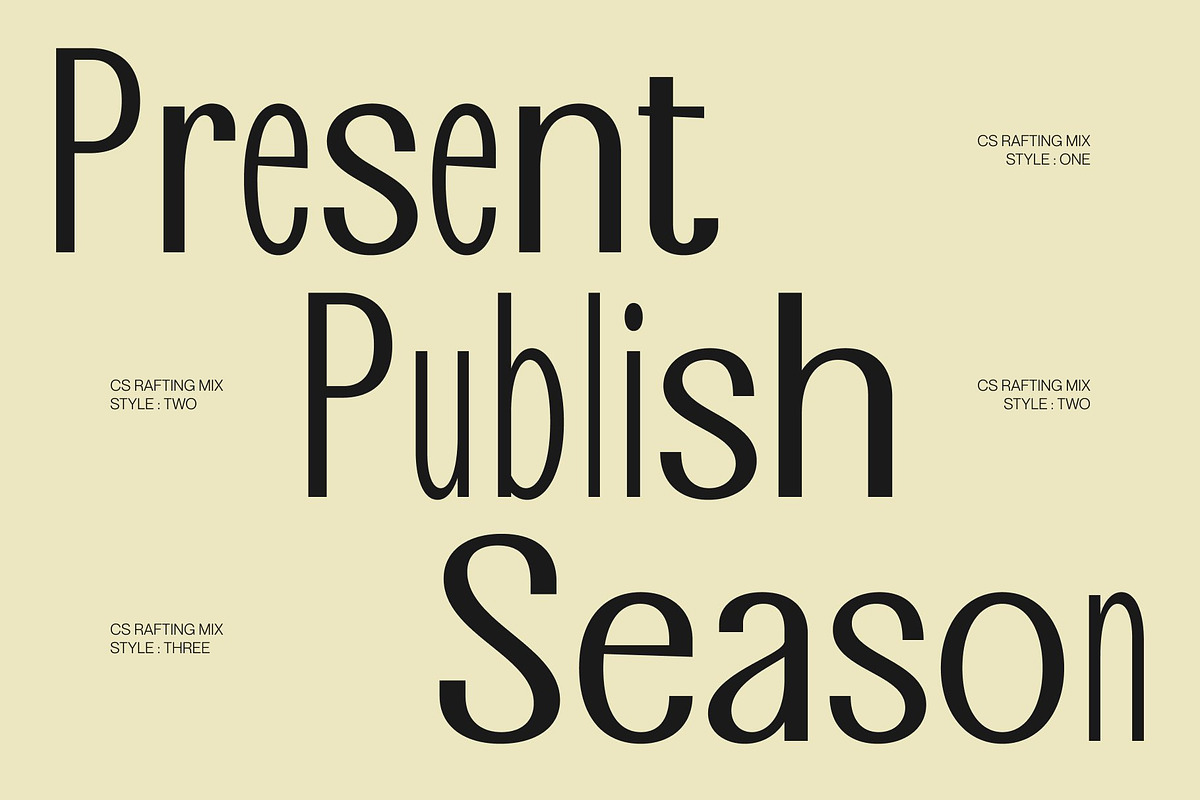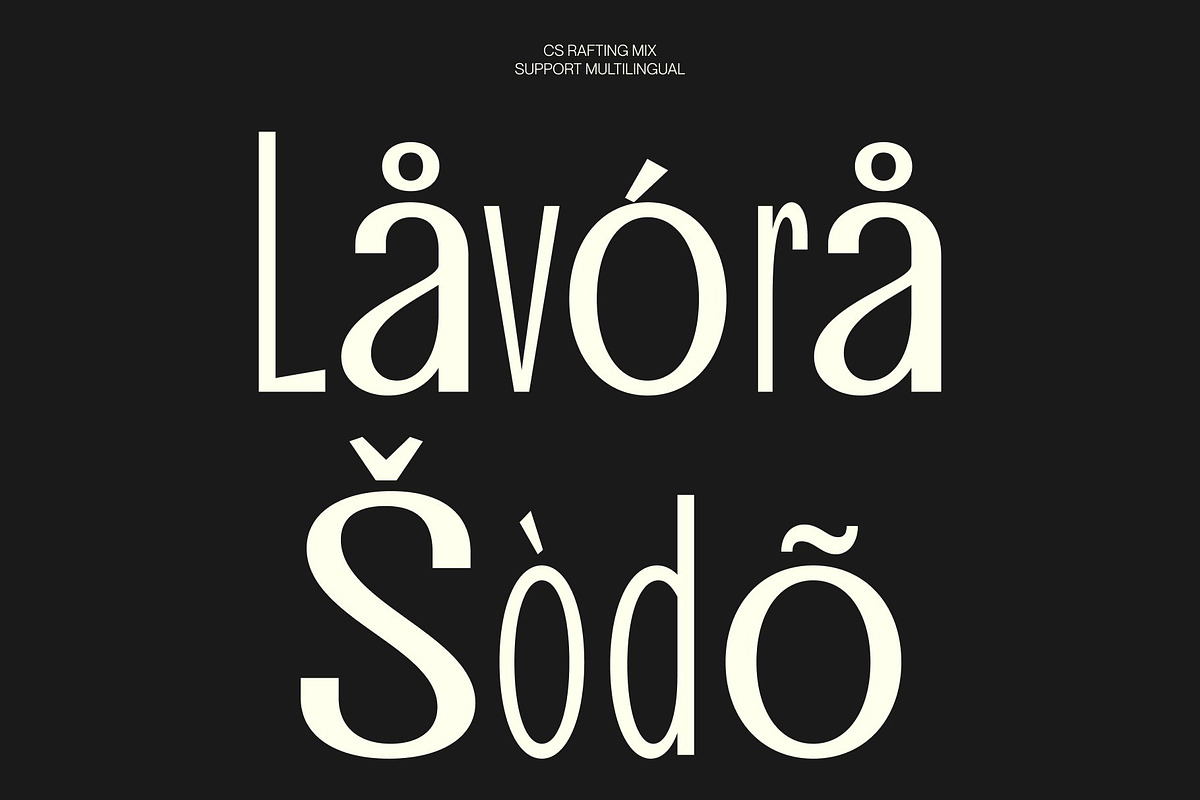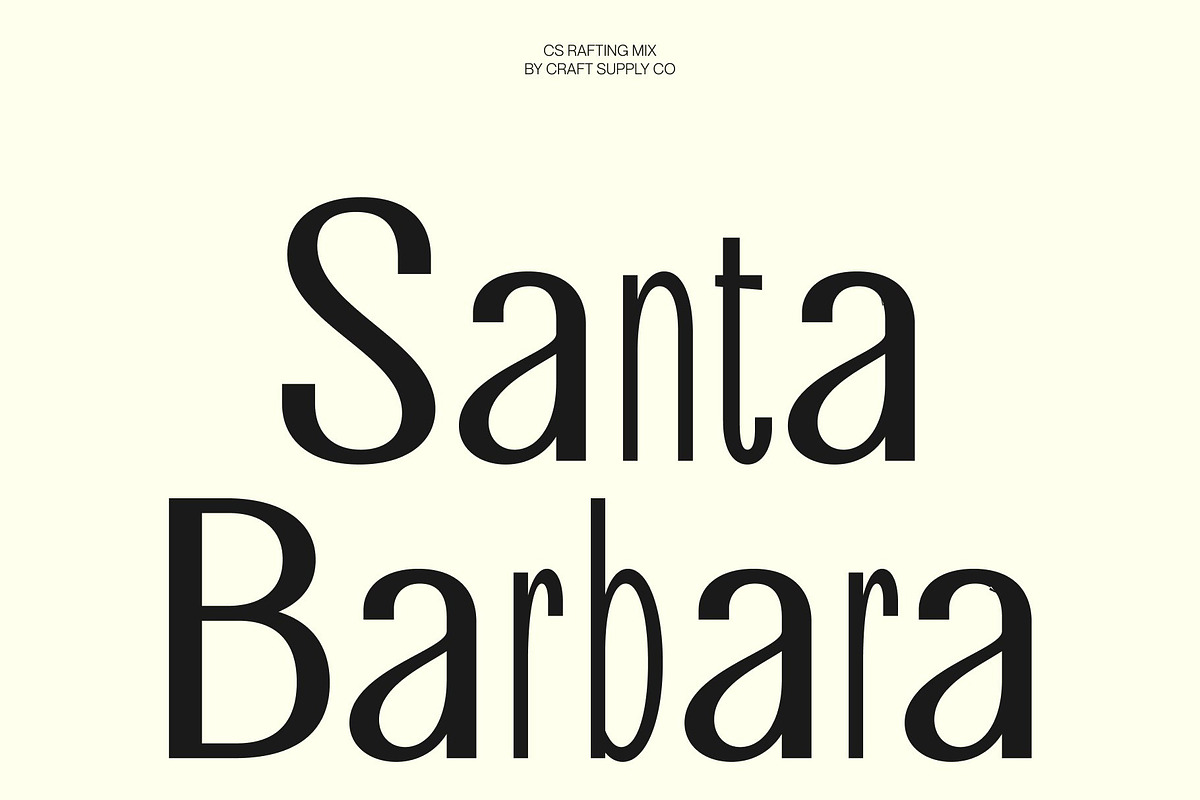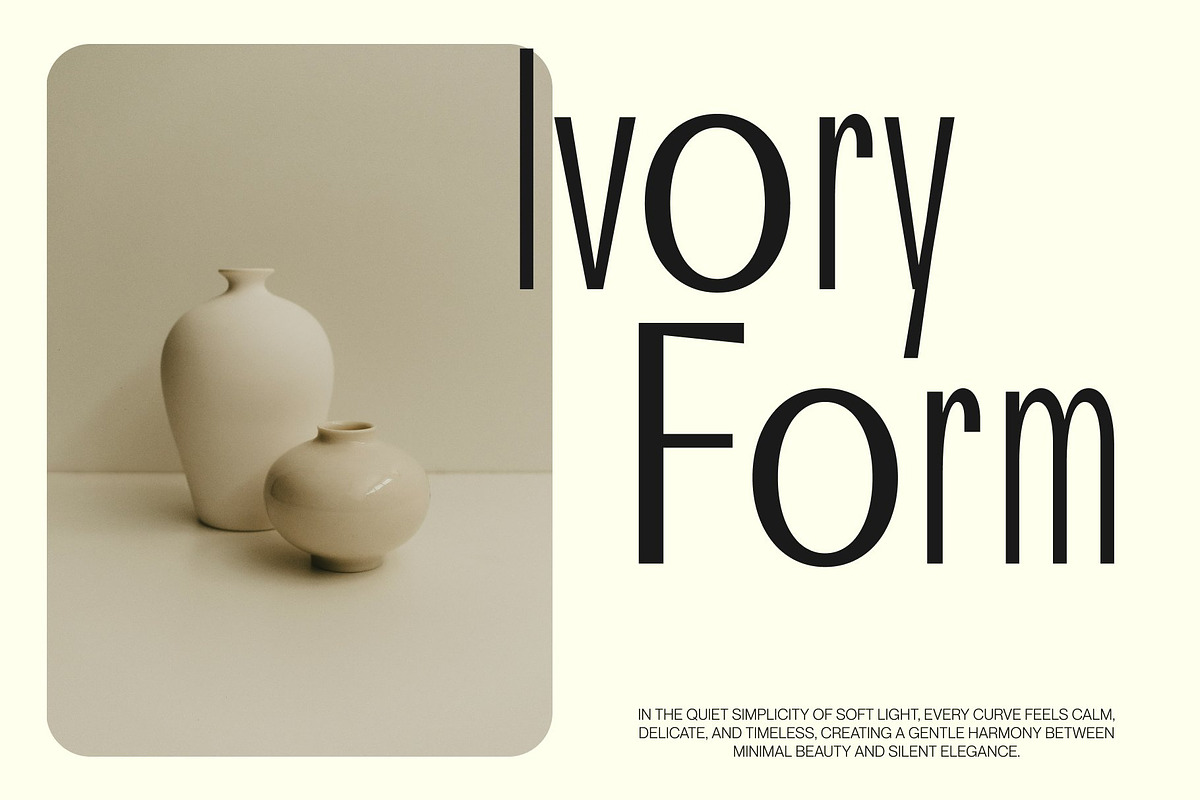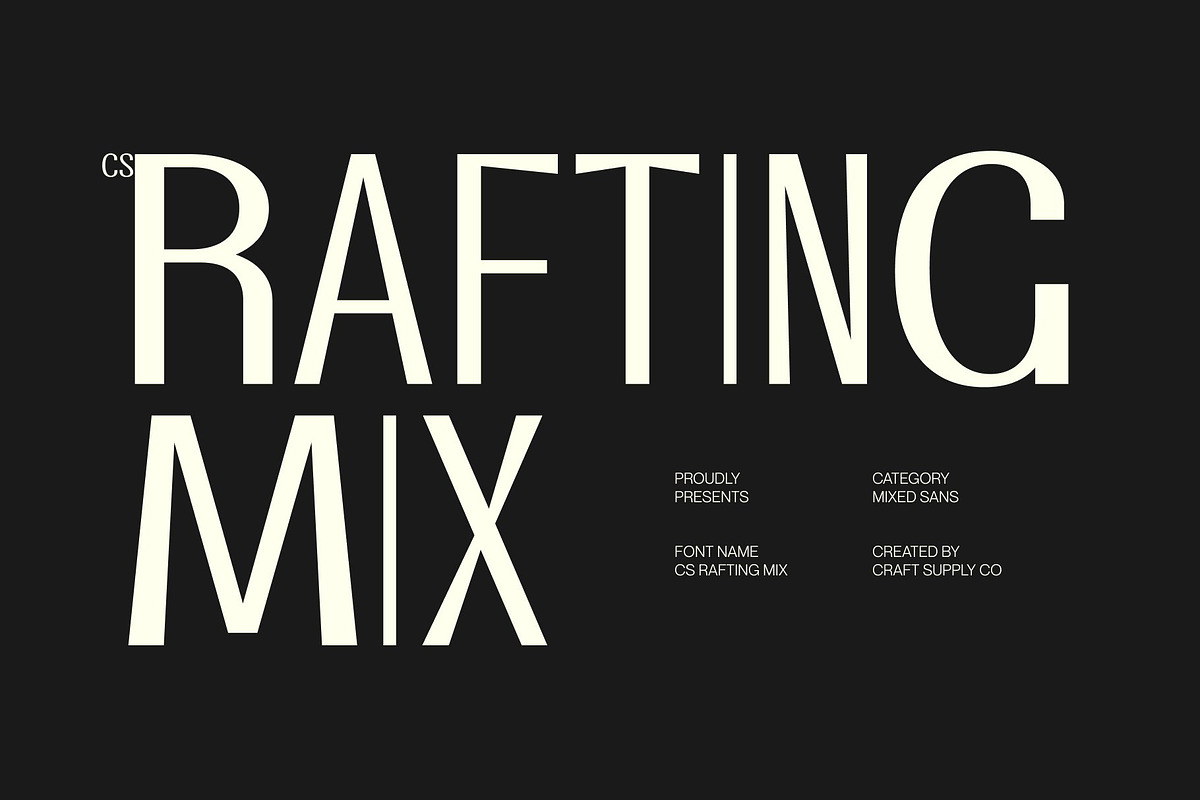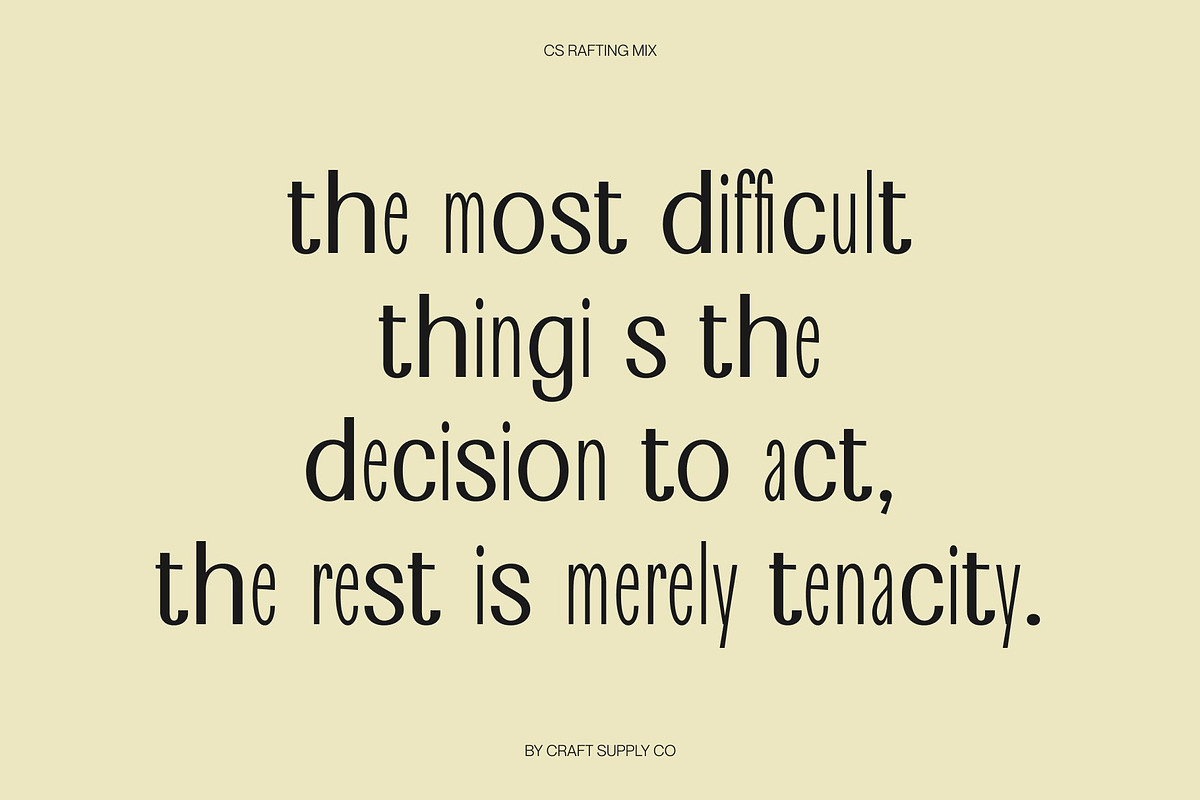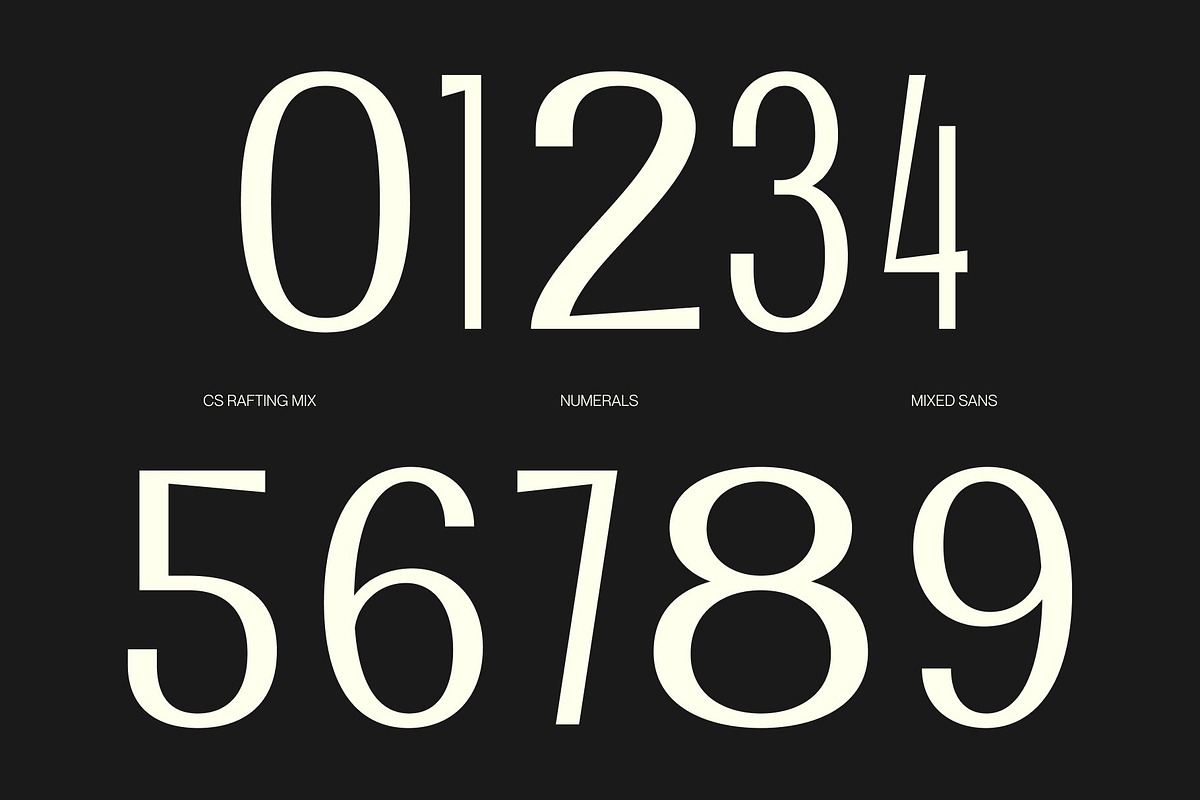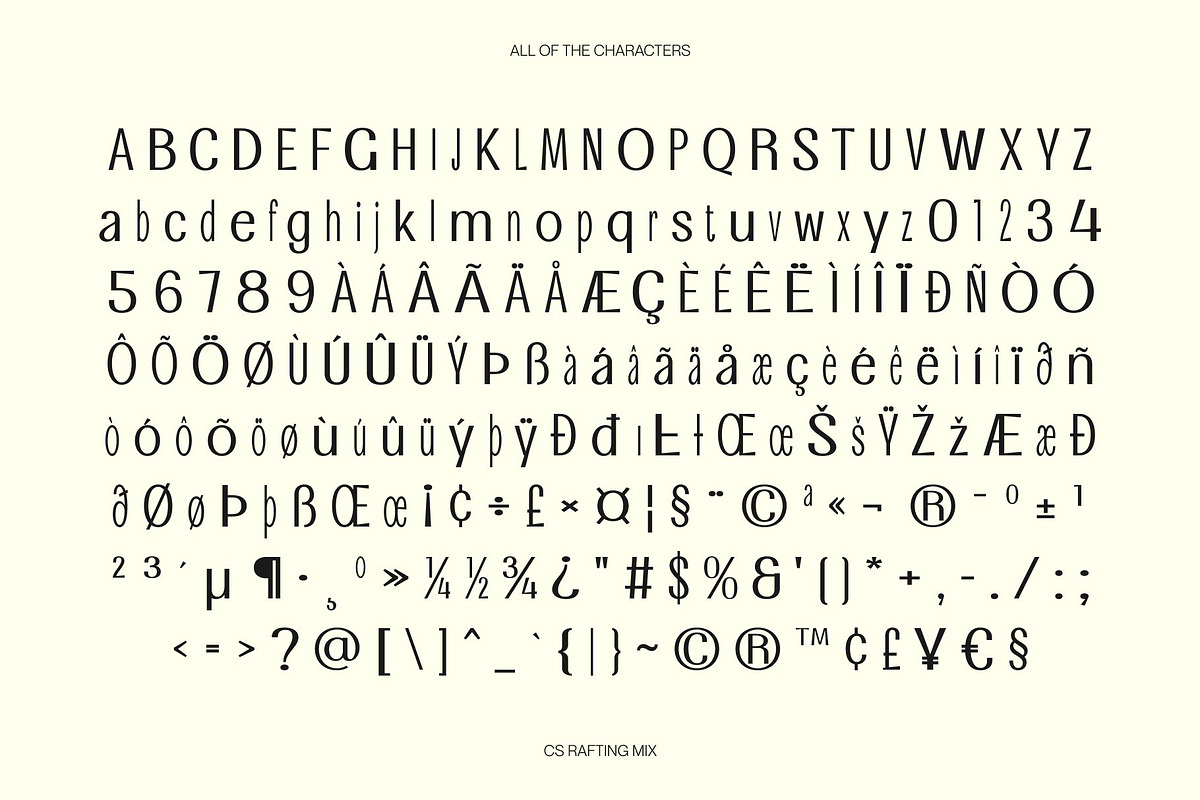
CS Rafting Mix
CS Rafting Mix – Modern Sans Serif Font: Elongated Elegance with Confident Modern Strength
Modern Sans Serif with Mixed Style Character This is a modern sans serif font designed to express confidence, precision, and contemporary sophistication. Built with clean structures and elongated proportions, this typeface introduces a distinctive mixed-style concept that adds subtle contrast and visual rhythm to every composition.
A Dynamic Blend of Bold and Regular Letterforms The defining strength of this font lies in its thoughtful fusion of bold and regular styles. This mixed-weight approach creates smooth typographic hierarchy and dynamic visual flow, allowing layouts to feel engaging without sacrificing clarity. The contrast between strong strokes and balanced forms enhances readability while giving the font a more expressive and contemporary personality.
Elongated Forms with Modern Precision This font features elongated letterforms that create a distinctive vertical rhythm and elegant visual presence. These proportions add sophistication and structure while reinforcing the font’s strong and professional character. Combined with its clean geometry and minimal detailing, the typeface feels modern, sharp, and highly adaptable across various design environments.
Perfect for Branding, Headlines, and Editorial Layouts From branding and editorial design to posters and digital content, this font adapts seamlessly across a wide range of creative applications. Its clear readability ensures excellent performance at both large and small sizes, while its elongated modern style gives designs a unique and confident identity.
CS Rafting Mix One
CS Rafting Mix Two
CS Rafting Mix Three